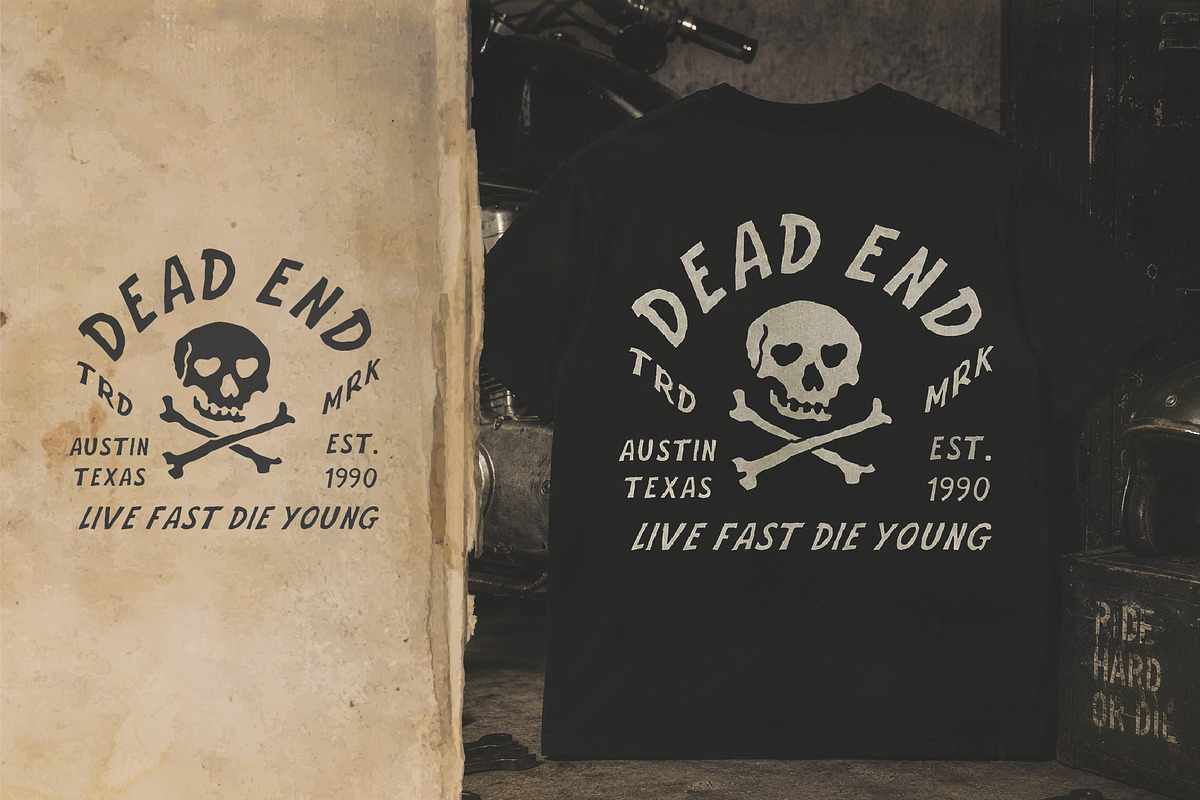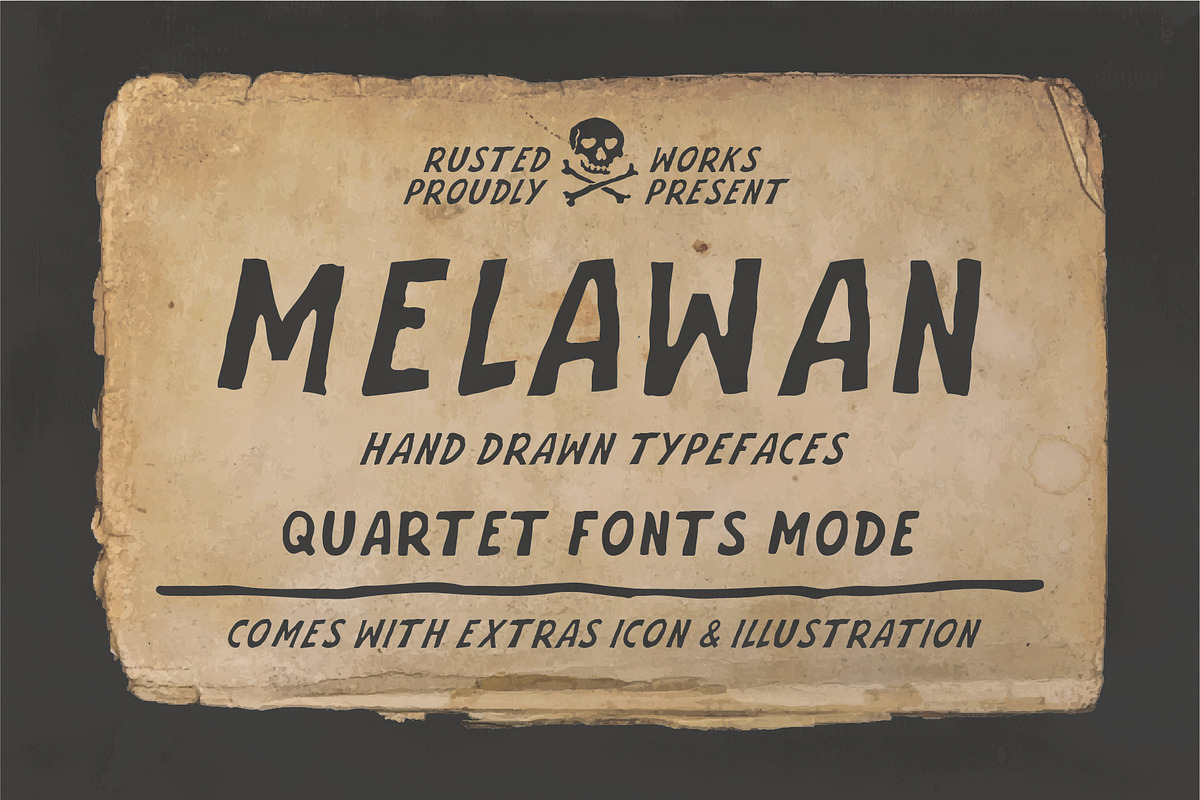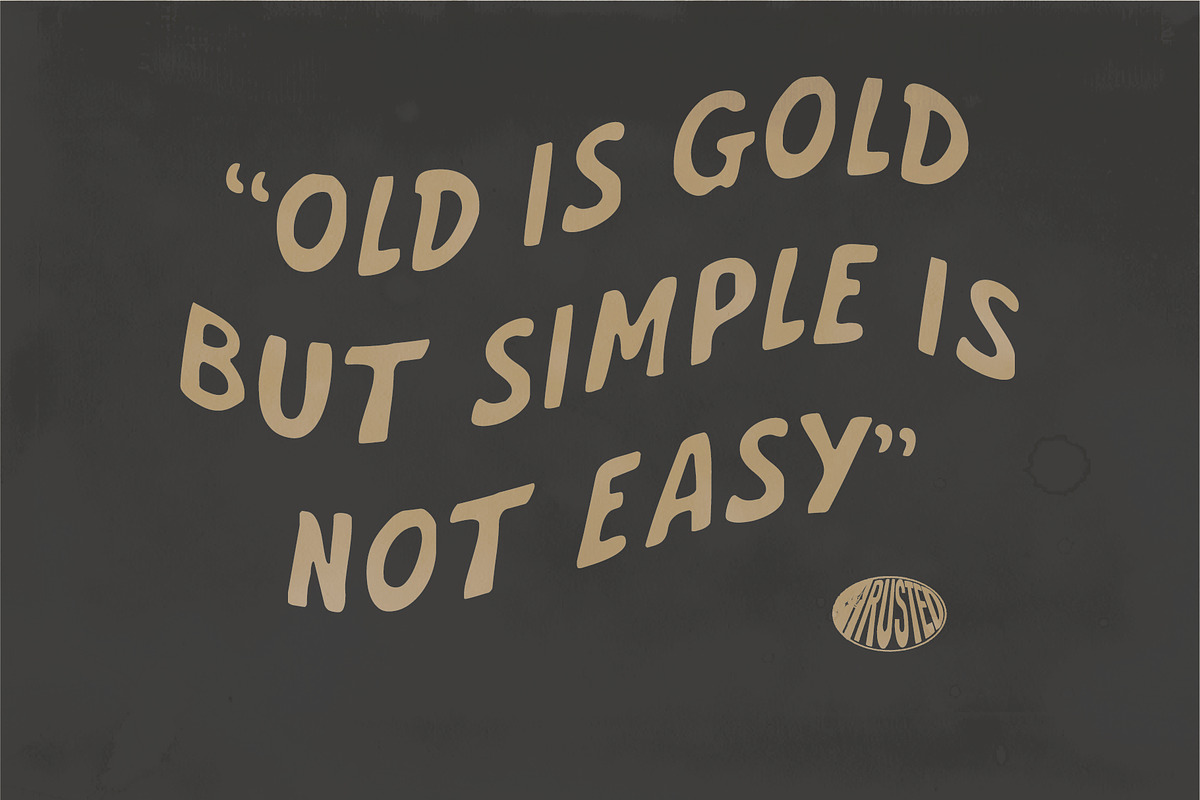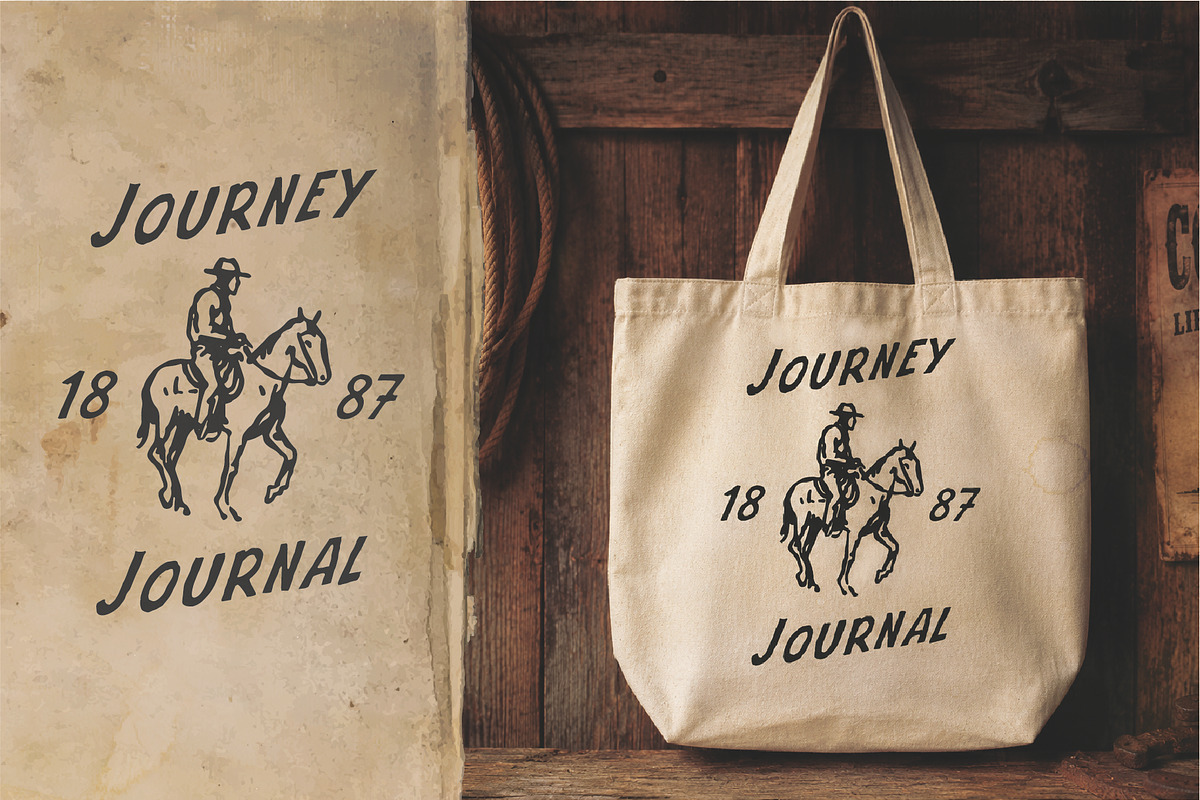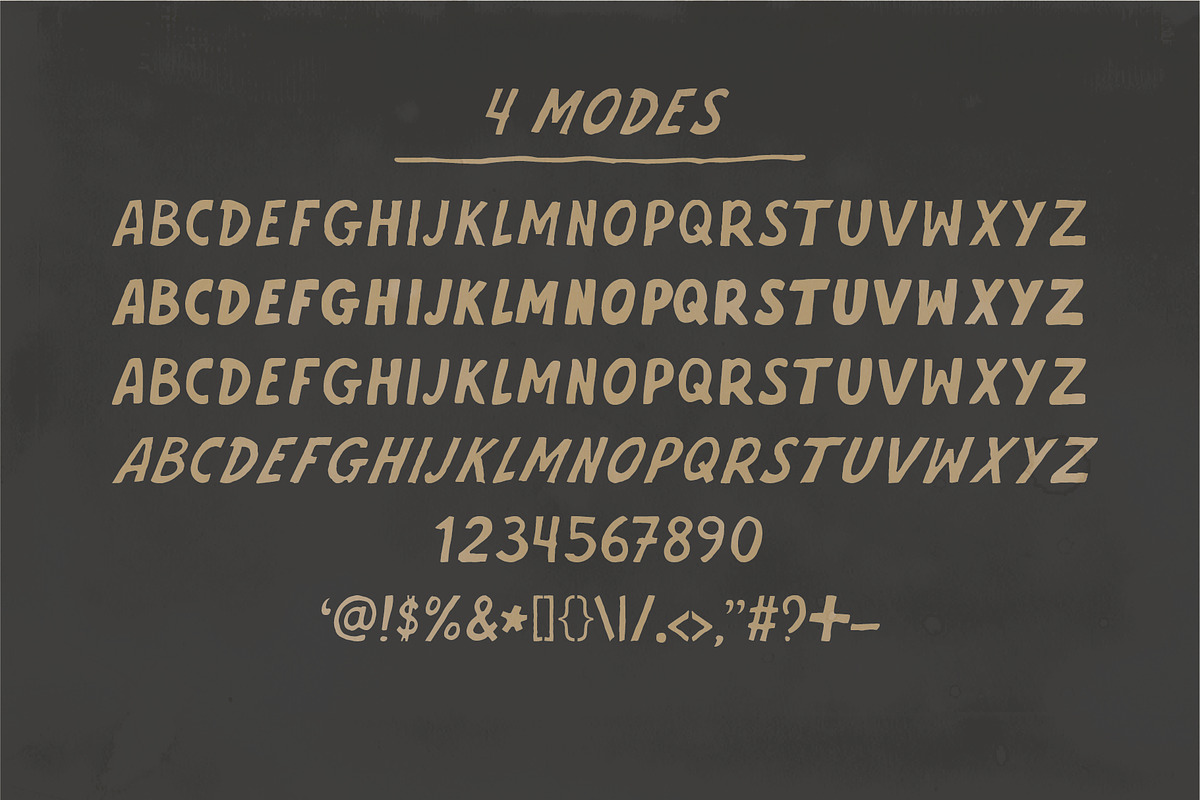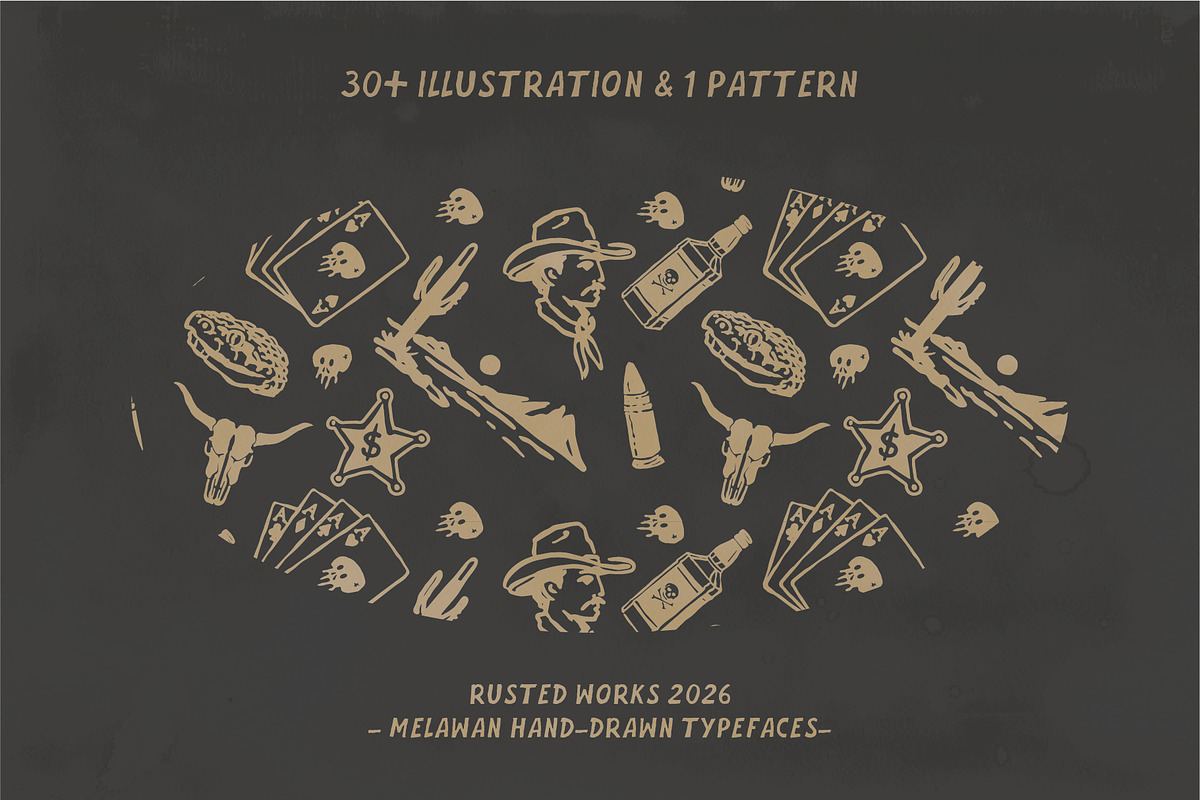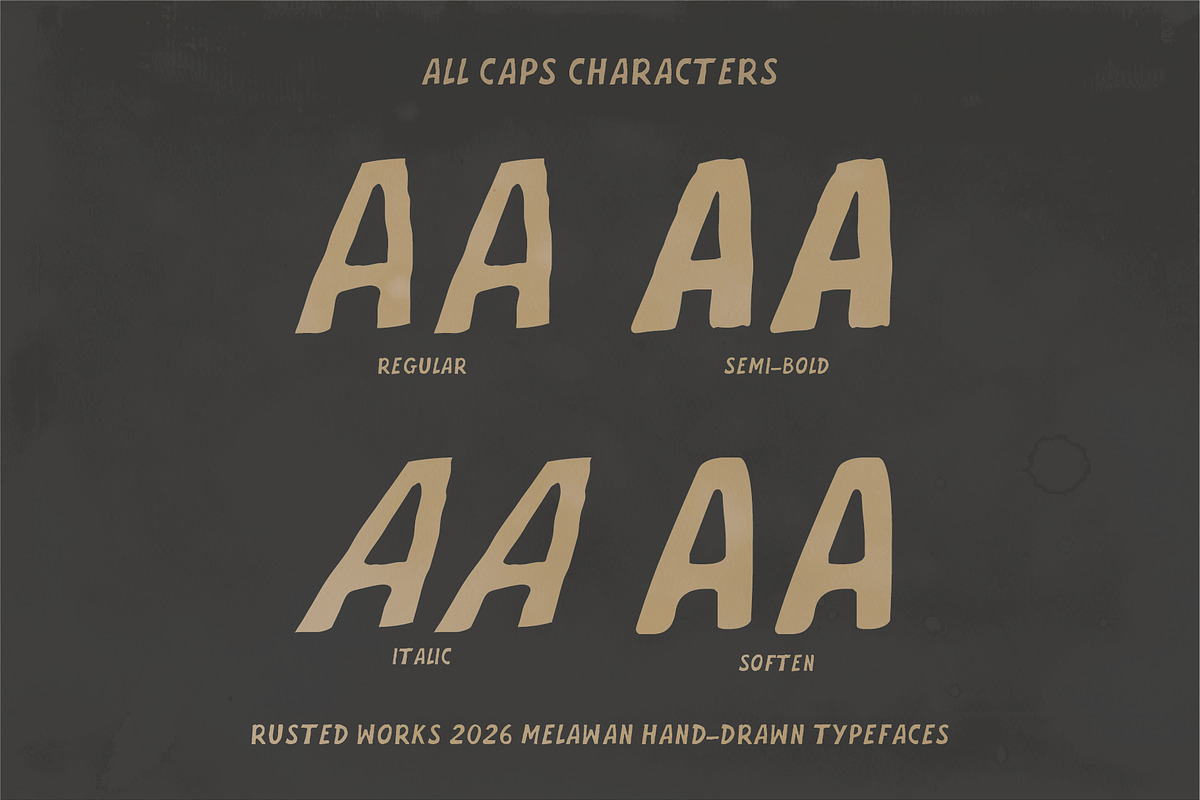
Melawan Typeface
Melawan - Handdrawn Rustic Sans Font
Melawan - Handdrawn Rustic Sans Font includes 1 fonts that have 4 different styles from each other but at the same time perfectly paired when used together. Melawan offers 4 display fonts, 30+ western illustrations & icon.
Melawan - Handdrawn Rustic Sans Font was forged carefully to create dynamics and timeless typography works. It would be a perfect choice to design posters, affiches, logos, t-shirt and magazine prints, eye-pleasing typographic designs and more.